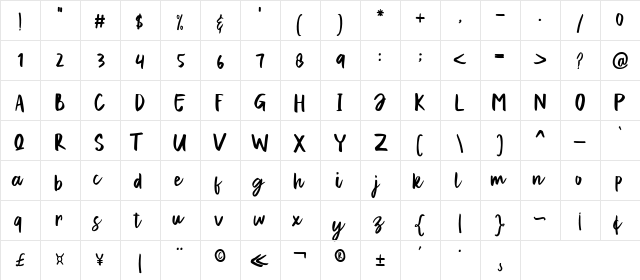
Exotic Queen Regular
| Foundry | Fajriadi |
| Designer | Fajriadi |
Design Context for Exotic Queen Typeface
Exotic Queen is a composed and adaptable typeface that performs quietly and consistently across a wide range of design contexts.